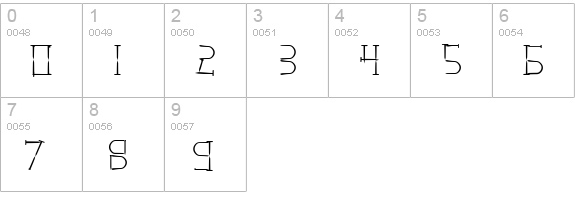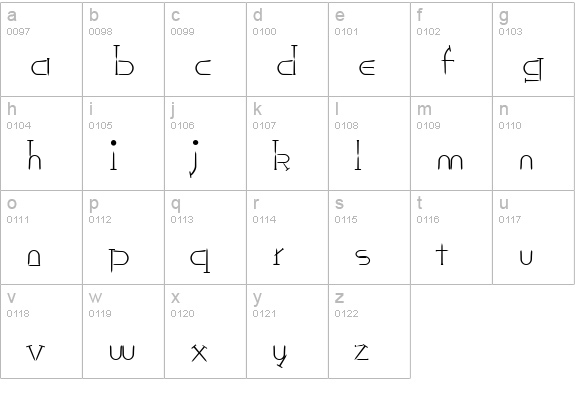
NailsNStaples Font Details
Introducing NailsNStaples font, a versatile and unique typeface that combines the elegance of nails with the sturdiness of staples. This font exudes a modern and industrial vibe, making it perfect for projects that require a bold statement. With its sharp lines and intricate details, NailsNStaples font is sure to catch the eye and make a lasting impression. Best of all, NailsNStaples font is available for free download at FontsMarket.com. Whether you're working on a branding project, a poster design, or simply looking to add a touch of edginess to your work, NailsNStaples font is the perfect choice. Download it today and let your creativity shine with this striking and dynamic typeface.